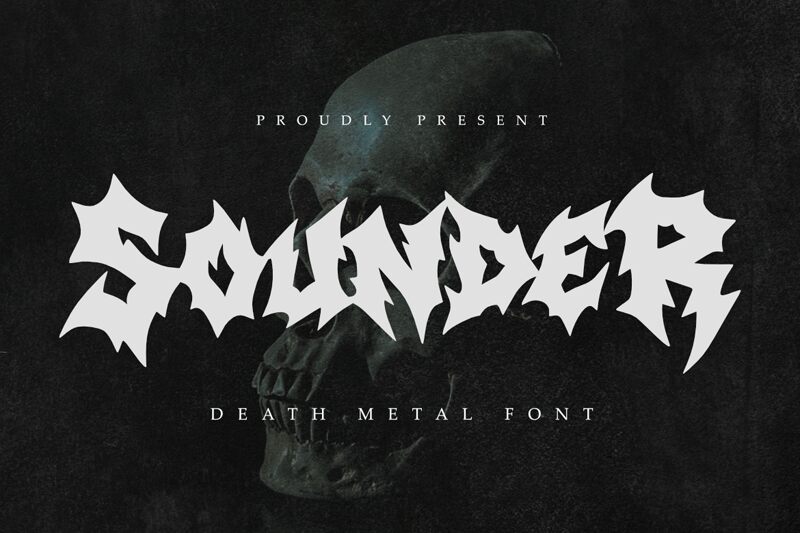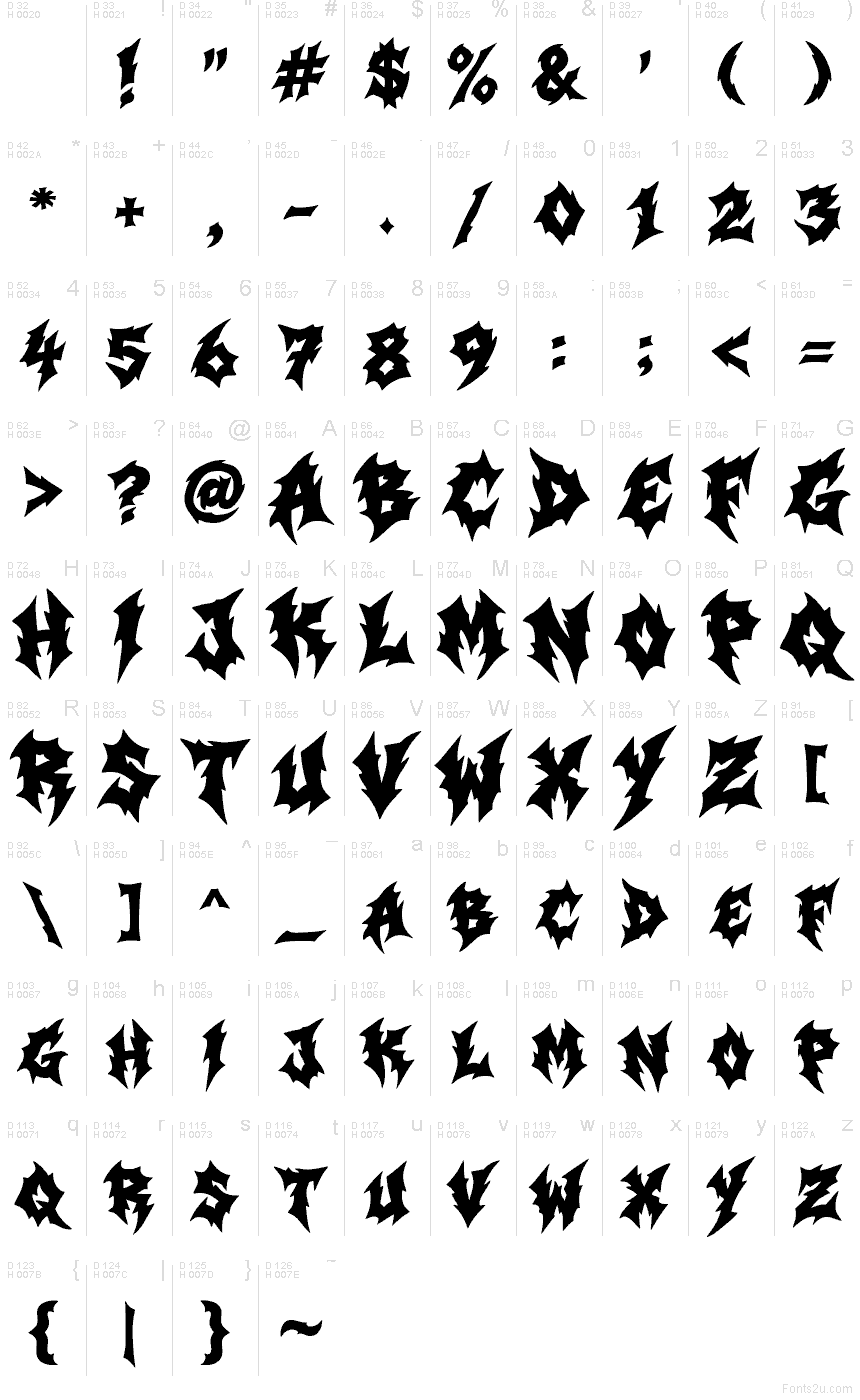
Sounder, by Masyafi Studio, is a free gothic caps font with a feral, modern metal edge. The letters look torn from thorns and flames, with hard spikes, clawed notches, and heavy silhouettes that turn the font into a single dark, aggressive shape rather than a calm set of forms.
It fits music posters, horror branding, album covers, title cards, and merch graphics where a free font needs to hit fast and stay raw. Use it for short headlines, band names, event flyers, or monogram-style marks, because the caps lock together with enough jagged motion to feel almost hand-carved.